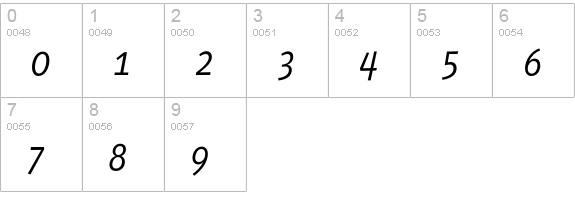
PedestriaMVB-Italic is a distinctive, italic variant in the PedestriaMVB typeface family \xE2\x80\x94 well suited to design and typography projects.
Introducing PedestriaMVB-Italic, a captivating and versatile font that effortlessly combines elegance with a touch of playfulness. This italic variant of the PedestriaMVB font family brings a unique and expressive flair to any design project it graces. With its sleek and slanted letterforms, PedestriaMVB-Italic exudes a sense of sophistication and modernity. The delicate curves and stylish angles of each character create a harmonious balance, making it a perfect choice for both headings and body text. This font's versatility knows no bounds, as it seamlessly adapts to various design styles and themes. Whether it's for branding, advertising, editorial layouts, or even personal projects, PedestriaMVB-Italic effortlessly adds a touch of elegance and professionalism. But what makes this font even more exceptional is the fact that it is available for free download at FontsMarket.com. Yes, you read that right! PedestriaMVB-Italic can be yours without any cost, allowing you to enhance your creative endeavors without breaking the bank. So why wait? Discover the beauty and versatility of PedestriaMVB-Italic today. Download it for free at FontsMarket.com and let your designs come to life with this captivating and freely available font.